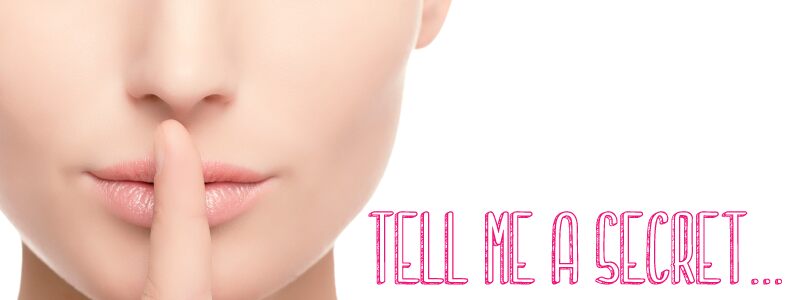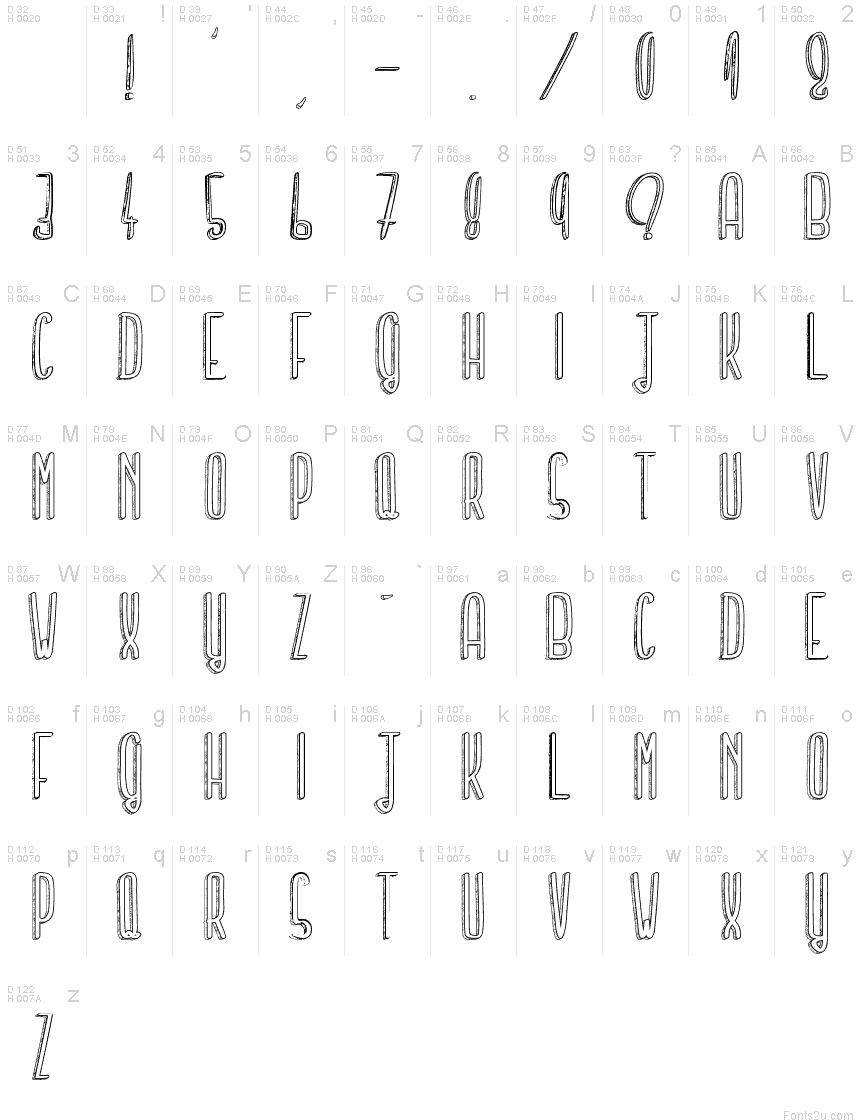
Tell Me a Secret is a free old-school 3D display font with tall, narrow capitals and an easygoing hand-drawn finish. Its open interiors are edged by uneven contours, and offset hatched shading gives each letter the look of a quick pen-and-ink rendering. The irregular lines keep it lively.
Packaging is a natural setting for its sketched dimensional style, especially on burger wrappers, snack labels, and retro drink branding. It also suits comic publishing and casual event posters aimed at younger audiences who respond to playful illustrated lettering.